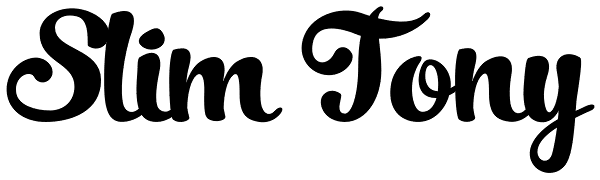
Slim Tony
Slim Tony is a delicious script font. Tony is a distant relative of Mishka but much bolder and more extravagant. Slim Tony works superbly for custom headlines and logotypes. Turn on Swash, Stylistic or Contextual Alternates for some serious extra...